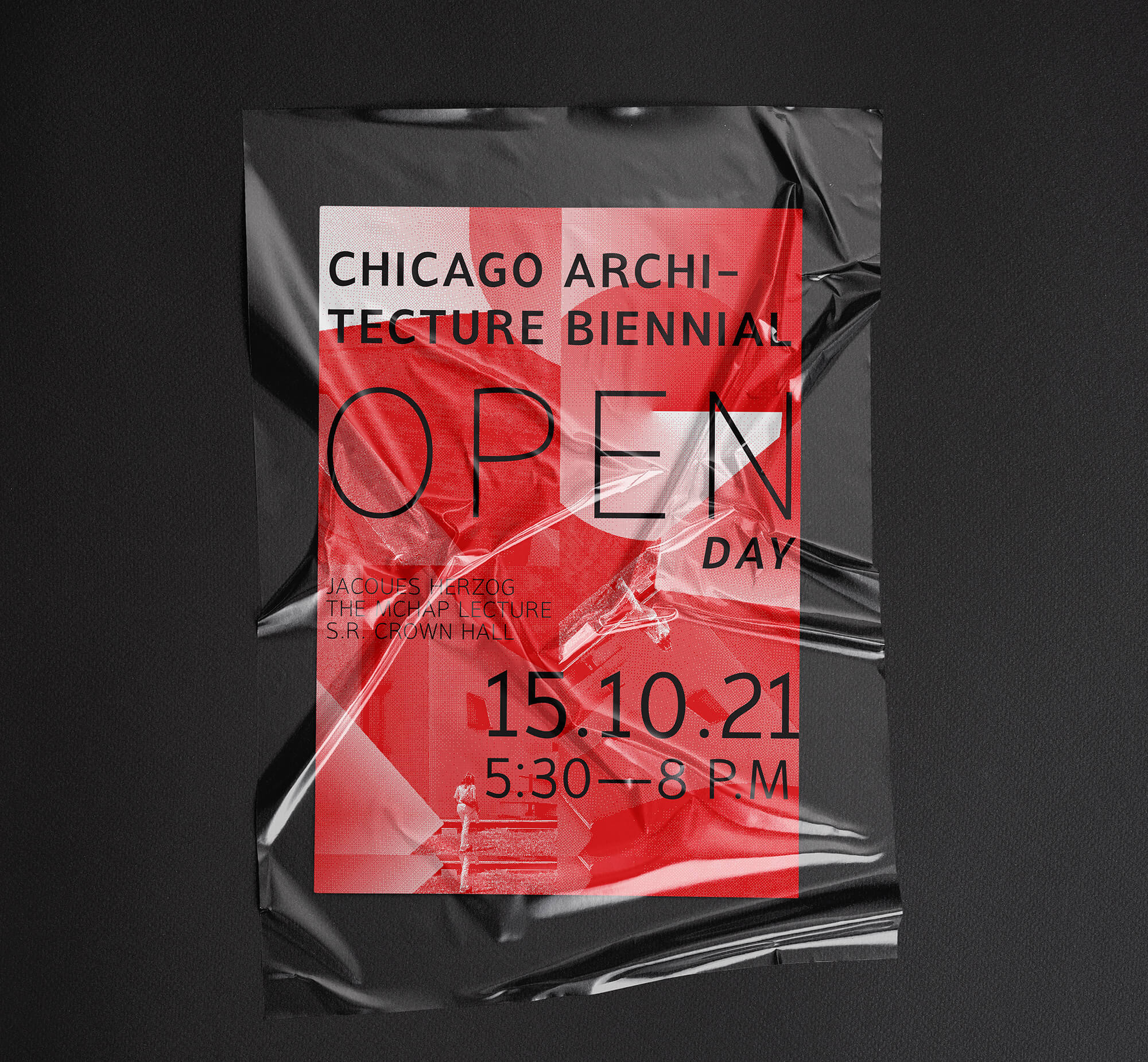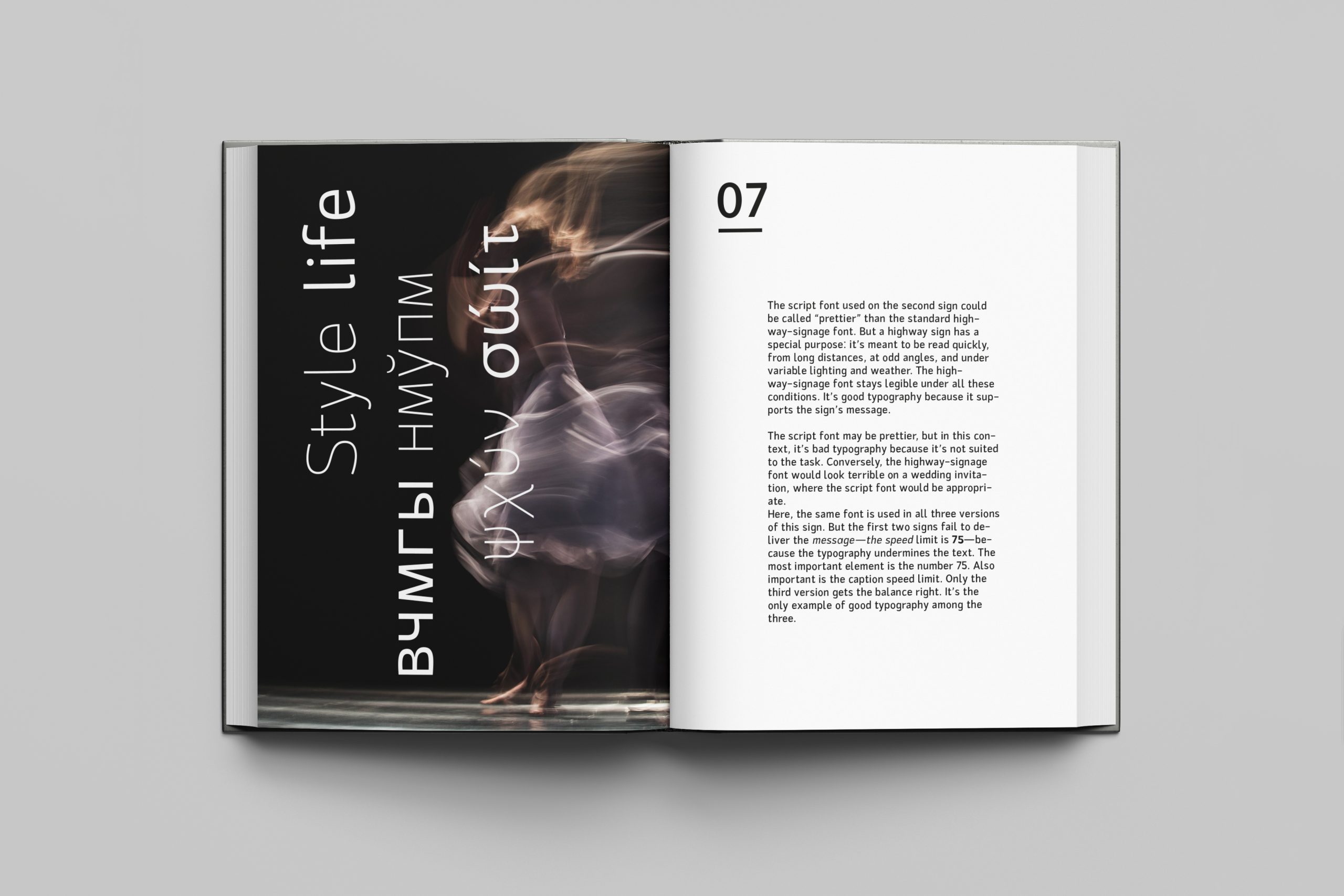
Sf Mesca Sans
Mesca is a distinctive multi-language font with characters (Latin, Greek, Cyrillic) for industry and digital, with elegant, high-quality typographic responses to the complex technological needs for different media and digital uniforms.
Mesca supports up to 111 different languages such as Spanish, English, Portuguese, Russian, German, French, Turkish, Italian, Polish, Ukrainian, Uzbek, Kurdish (Latin), Romanian, Dutch, Hungarian, Serbian (Latin), Serbian (Cyrillic), Czech, Kazakh (Latin), Bulgarian, Swedish, Belarusian (Latin), Belarusian (Cyrillic), Croatian, Finnish, Slovak, Danish, Lithuanian, Latvian, Slovenian, Irish, Estonian, Basque, Icelandic, and Luxembourgian in Latin, Cyrillic, and other scripts.